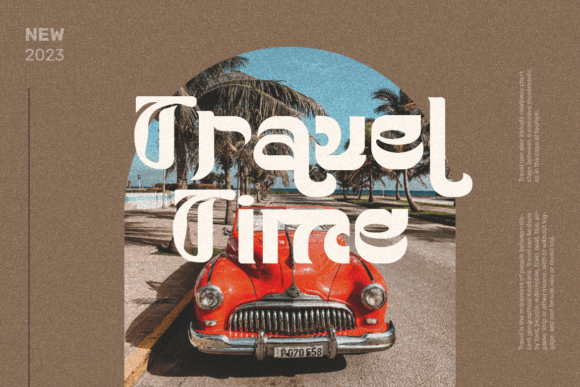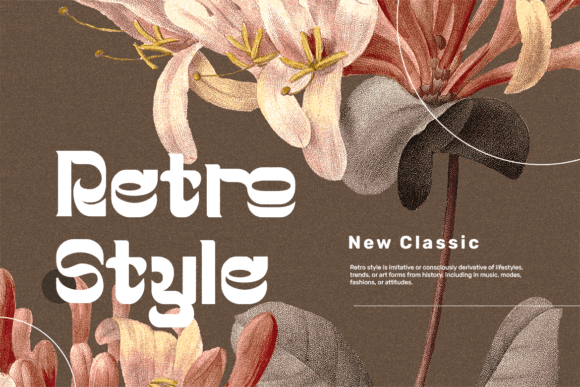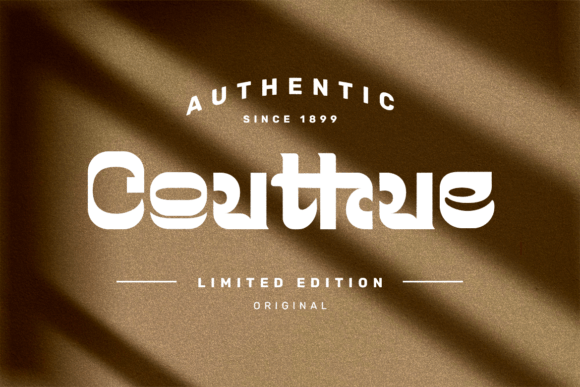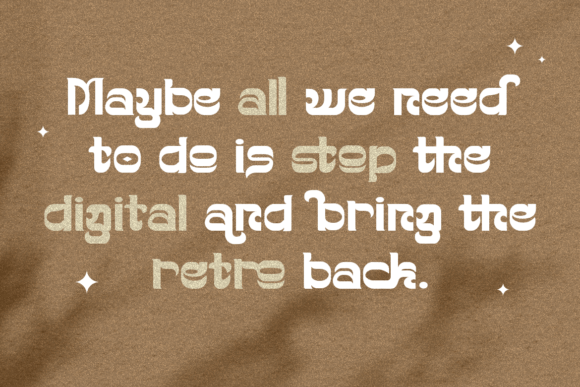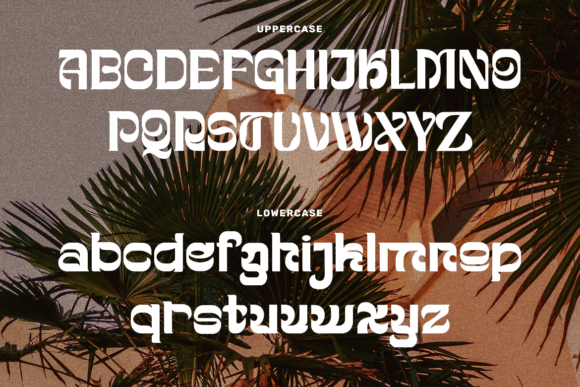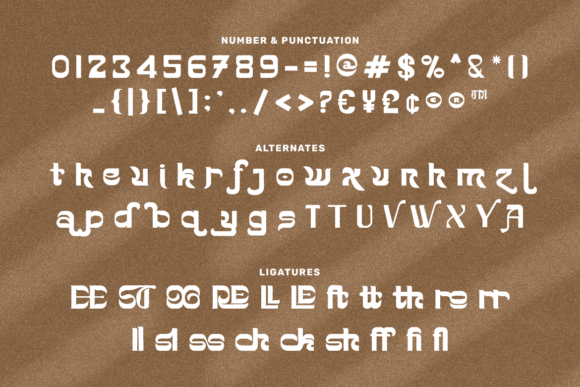
Introduction to Fondre Font
Do you remember that moment when you stumbled upon the perfect font for your creative project, and it just clicked? It’s like finding the missing piece of a puzzle, and everything falls into place. For designers, this moment is priceless, and that’s exactly what the Fondre Font offers – a unique blend of vintage charm and modern twist that sets any project apart.
As a valuable design resource, Fondre Font is perfect for branding projects, logos, wedding designs, social media posts, and more. With its high-quality glyphs and ligatures, you can create stunning visuals that demand attention. Plus, its transparent background makes it easy to overlay on any image or design, giving you endless possibilities. Whether you’re a seasoned designer or just starting out, Fondre Font is a must-have in your design arsenal.
- Unique characteristics include a modern and sleek design aesthetic, perfect for branding and marketing materials.
Honest Review: Fondre Font
I recently stumbled upon the Fondre Font, and I must say it’s been a game-changer for my creative projects. As a designer, I’m always on the lookout for high-quality design resources that can elevate my work.
One of the standout features of Fondre Font is its versatility. It comes with a transparent background, making it perfect for overlays and other design elements where you need a bit of flexibility.
Here are some things that work well with Fondre Font:
- ✨ Great for digital designs, such as social media graphics and web pages
- ✨ Perfect for creating custom icons and illustrations
- ⚠️ Limited character set, which may not be ideal for longer text-based projects
- ⚠️ Not as extensive as some other font libraries I’ve used in the past
Overall, I’m really impressed with Fondre Font. It’s a great addition to any designer’s toolkit, and its high quality and versatility make it a valuable resource for any creative project.
What is Fondre Font?
Fondre Font is a high-quality design resource that offers a wide range of unique and stylish fonts. It’s a great tool for any creative project, from graphic design to digital art.
Tips for Getting the Most Out of Fondre Font
For the best results, use Fondre Font on a transparent background to create a sleek and modern look. Experiment with different font sizes and styles to add visual interest to your design. You can also use Fondre Font in combination with other design elements, such as images and graphics, to create a unique and eye-catching design.
Common Use Cases for Fondre Font
Fondre Font is perfect for any creative project, including:
- Digital art
Q: Is Fondre Font suitable for high-resolution printing?
Yes, Fondre Font is designed to be high-quality and suitable for high-resolution printing. It features clear and crisp characters, making it perfect for use in brochures, business cards, and other print materials. The font’s high-quality design ensures that it will look great on paper and in digital formats.